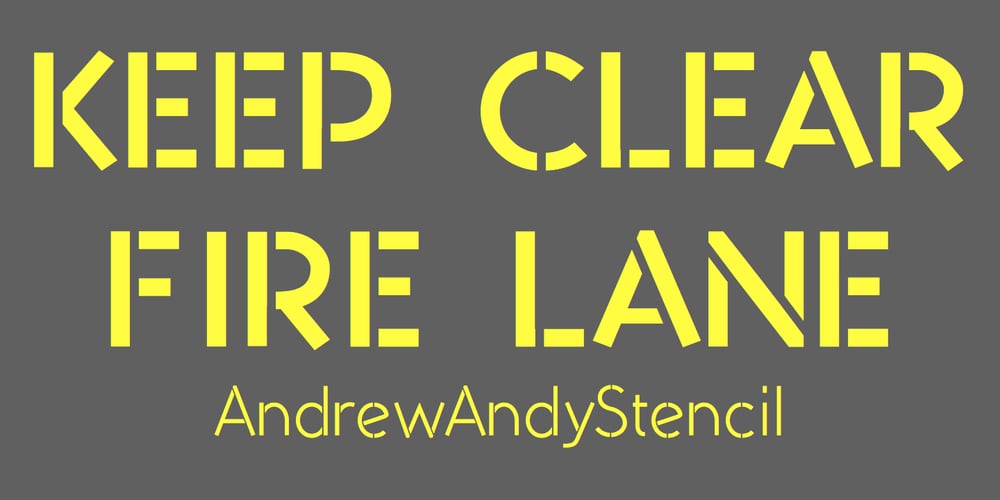
AndrewAndyStencil
AndrewAndyStencil font
AndrewAndyStencil Font Family was designed by Robert Schenk and published by Ingrimayne Type. AndrewAndyStencil contains 2 styles and family package options. AndrewAndyStencil is a sans-serif, stencil font in two weights derived from the Ingrimayne font AndrewAndreas.